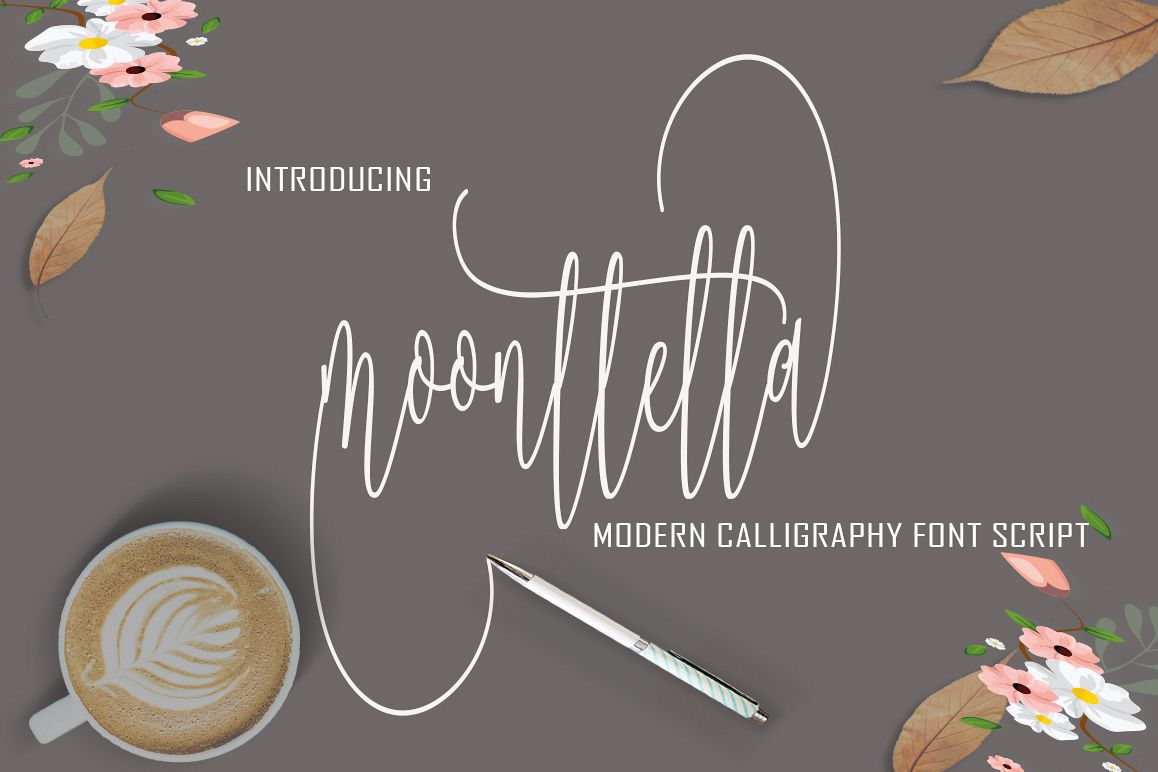
Moonttella
Moontella-Regular
Moonttella Modern Calligraphy. This font was designed by handwriting, and it has a modern and unique forms of calligraphy, the writing style is very natural.
Standart ligatures
Stylistic Alternates
Contextual Alternates
Stylistic sets